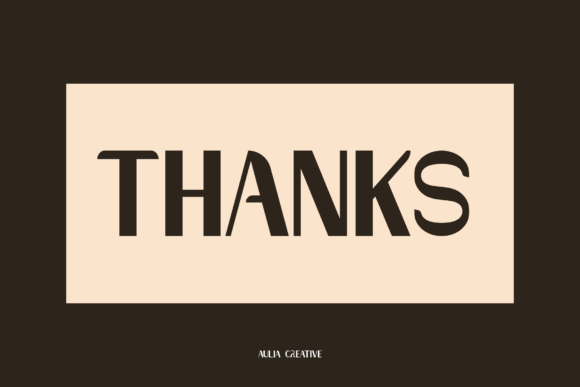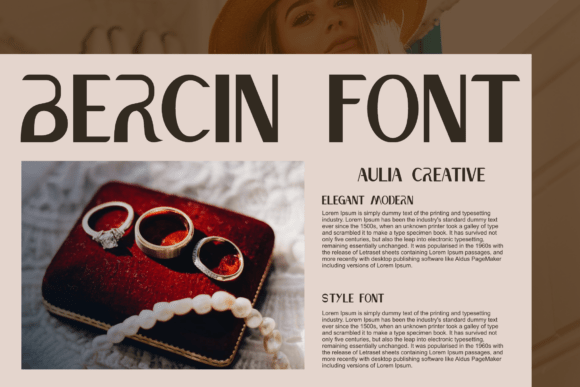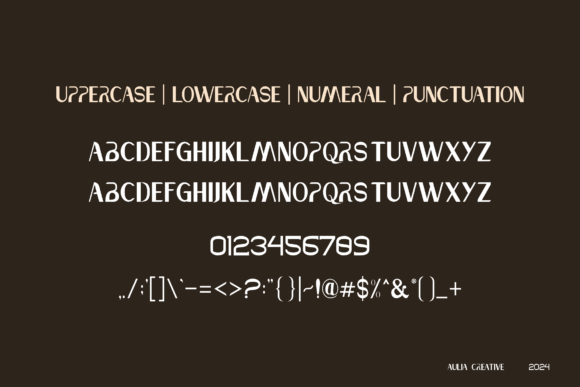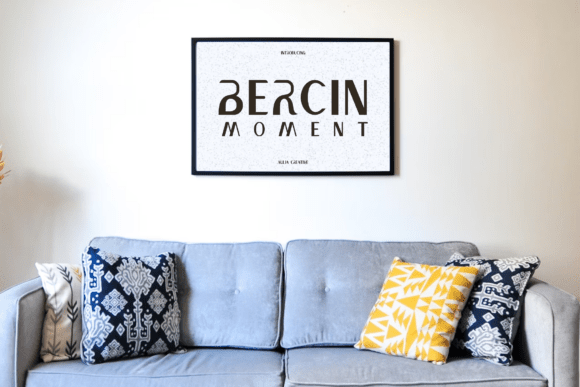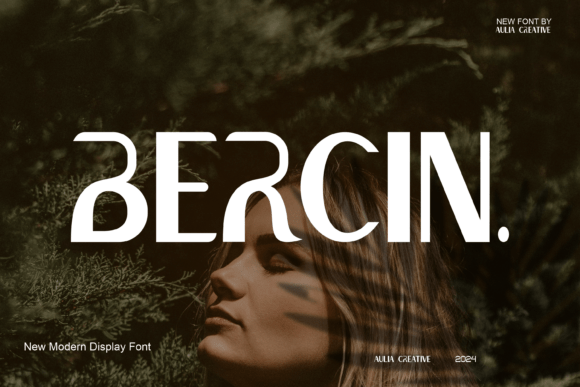
Bercin Font: Elevate Your Design with a Sleek, Modern Display Font
In the world of typography, a font can make or break a design. For designers and crafters looking to make a bold statement, Bercin Font is an excellent choice. This sleek, modern display font boasts high-contrast strokes and futuristic shapes, perfect for fashion, editorial design, and branding that demands attention.
What is Bercin Font?
Bercin Font is a carefully crafted typeface designed to turn heads. Its high-contrast strokes create a sense of elegance and sophistication, while its futuristic shapes add a touch of innovation and forward-thinking. This font is ideal for projects that require a bold, eye-catching look, such as fashion magazines, luxury brand logos, and editorial designs.
Key Features of Bercin Font
- High-contrast strokes: Bercin Font’s high-contrast strokes create a dramatic and elegant look, perfect for designs that require a touch of sophistication.
- Futuristic shapes: The font’s futuristic shapes add a modern and innovative feel to any design, making it ideal for forward-thinking brands and projects.
- Sleek and modern design: Bercin Font’s sleek and modern design makes it perfect for fashion, editorial design, and branding that needs a bold statement.
- Versatile: This font can be used for a variety of design projects, from digital to print, and can be easily customized to fit your brand’s style.
Use Cases for Bercin Font
Bercin Font is a versatile typeface that can be used for a wide range of design projects, including:
- Fashion design: Use Bercin Font to create stunning fashion magazines, lookbooks, and brand logos that exude style and sophistication.
- Editorial design: Add a touch of elegance and sophistication to your editorial designs, such as newspapers, magazines, and blogs.
- Branding: Create bold and eye-catching logos, business cards, and letterheads that make a lasting impression.
- Digital design: Use Bercin Font to create stunning digital designs, such as website headers, social media graphics, and mobile app interfaces.
Tips for Using Bercin Font
To get the most out of Bercin Font, here are some tips to keep in mind:
- Use it sparingly: Bercin Font is a bold and eye-catching font, so use it sparingly to avoid overwhelming your design.
- Pair it with a neutral font: Pair Bercin Font with a neutral font to create a striking contrast and add visual interest to your design.
- Experiment with colors: Bercin Font looks great in a variety of colors, so experiment with different colors to find the one that works best for your design.
- Pay attention to typography: Pay attention to typography and use Bercin Font in a way that creates a clear visual hierarchy.
Bercin Font is a sleek, modern display font that is perfect for designers and crafters looking to make a bold statement. With its high-contrast strokes and futuristic shapes, this font is ideal for fashion, editorial design, and branding that demands attention. By following the tips outlined above, you can use Bercin Font to elevate your design and create stunning visual effects.